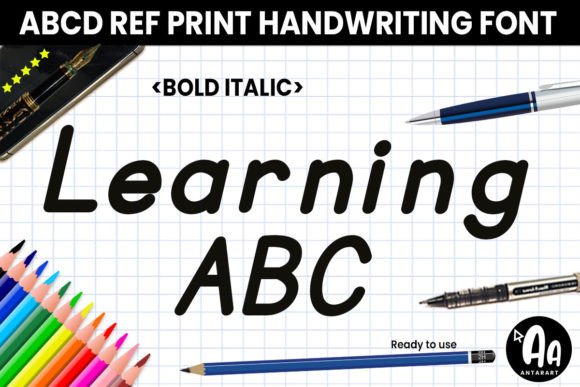
The Ultimate Guide to Abcd Ref Bold Italic Font
As a designer, I’ve had my fair share of font struggles. I recall working on a project for a client who needed a fun and interactive way to teach the print alphabet to their students. I scoured the internet for the perfect font, but nothing seemed quite right. That was until I stumbled upon the Abcd Ref Bold Italic font. In this article, I’ll share my experience with this handy display font, its features, and how to make the most of it.
A Personal Design Moment: Finding the Perfect Font
I was working on a worksheet project for a client who used the D’Nealian Method US school. I needed a font that was not only fun but also aligned with the D’Nealian style. After hours of searching, I discovered the Abcd Ref Bold Italic font, which is part of the ABCD Ref font family. It was love at first sight! The font’s playful yet educational vibe made it perfect for my project.
Abcd Ref Bold Italic Font: An Honest Review
The Abcd Ref Bold Italic font has become a staple in my design toolkit. Here’s what I love about it:
• ✨ Perfect for educational projects: The font’s design is based on the D’Nealian Method US school, making it an excellent choice for teaching the print alphabet.
• âś… Highly versatile: With its bold and italic styles, you can create a wide range of worksheets, from fun and playful to serious and educational.
• 🔍 OpenType features: The font comes with a range of OpenType features, including glyphs and stylistic alternates, which allow for endless creative possibilities.
While the font is amazing, there are a few quirks to be aware of:
• 🤔 Limited character set: The font is designed specifically for the print alphabet, so don’t expect a wide range of characters or special symbols.
• ⚠️ Not suitable for body text: Due to its bold and italic styles, this font is best used for headings, titles, or display text.
Designer Inspiration: The Story Behind Abcd Ref Bold Italic
The Abcd Ref Bold Italic font was designed with the D’Nealian Method US school in mind. The font’s creator aimed to create a fun and interactive way to teach the print alphabet. By combining bold and italic styles, the font provides a unique and engaging way to learn and teach.
Font Name Abcd Ref Bold Italic Font
Author AntarArt
What is the Abcd Ref Bold Italic font based on? The Abcd Ref Bold Italic font is based on the D’Nealian Method US school.
Is the Abcd Ref Bold Italic font suitable for body text? No, the font is best used for headings, titles, or display text due to its bold and italic styles.